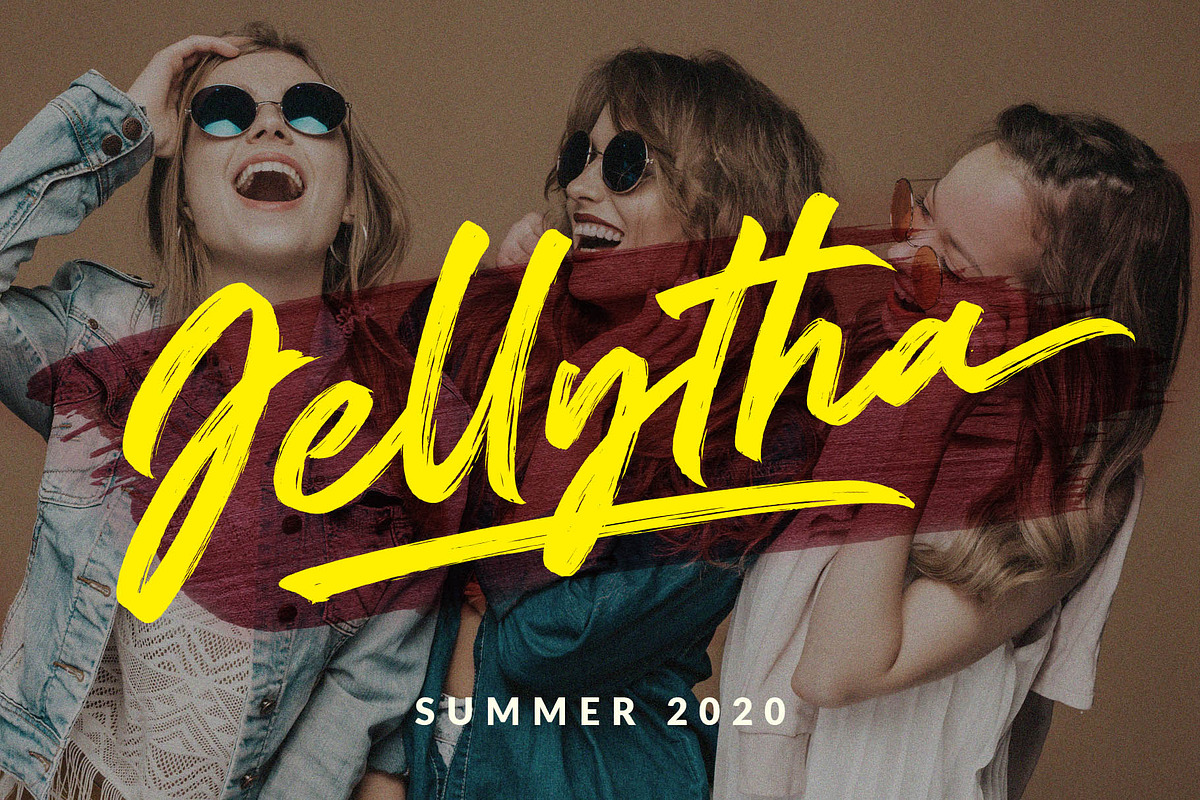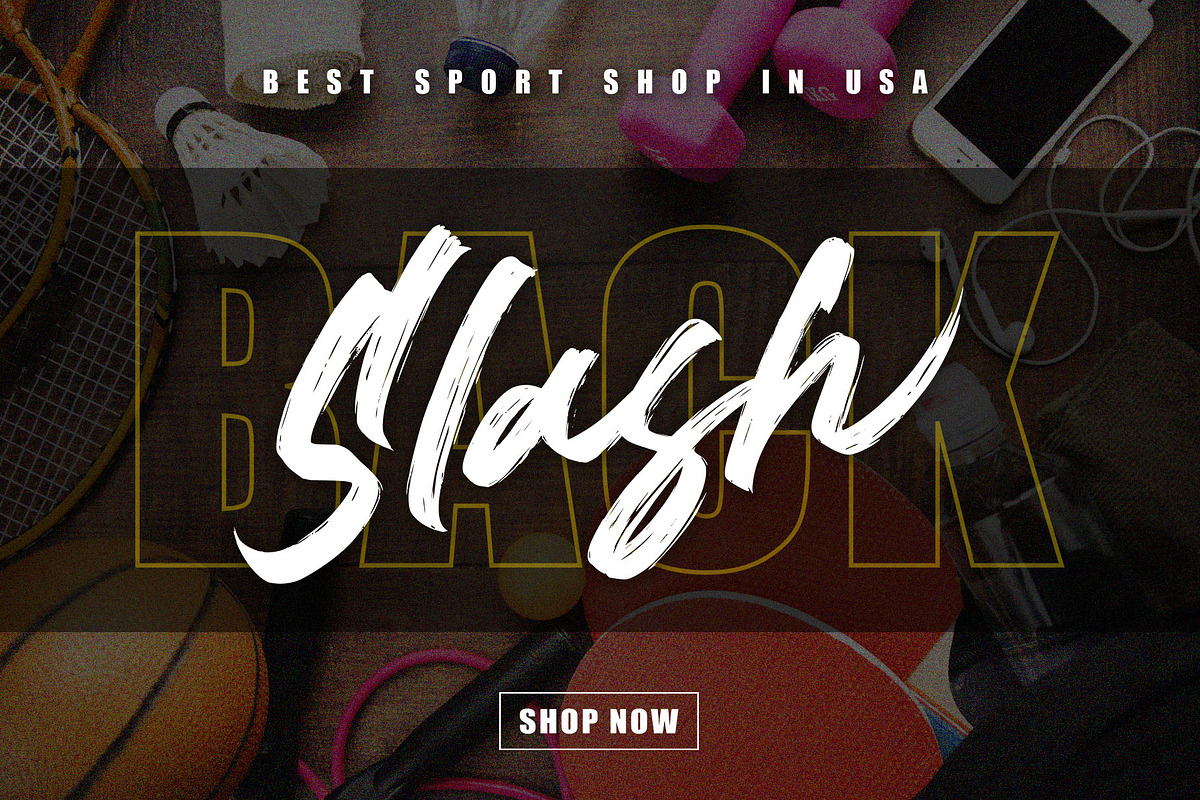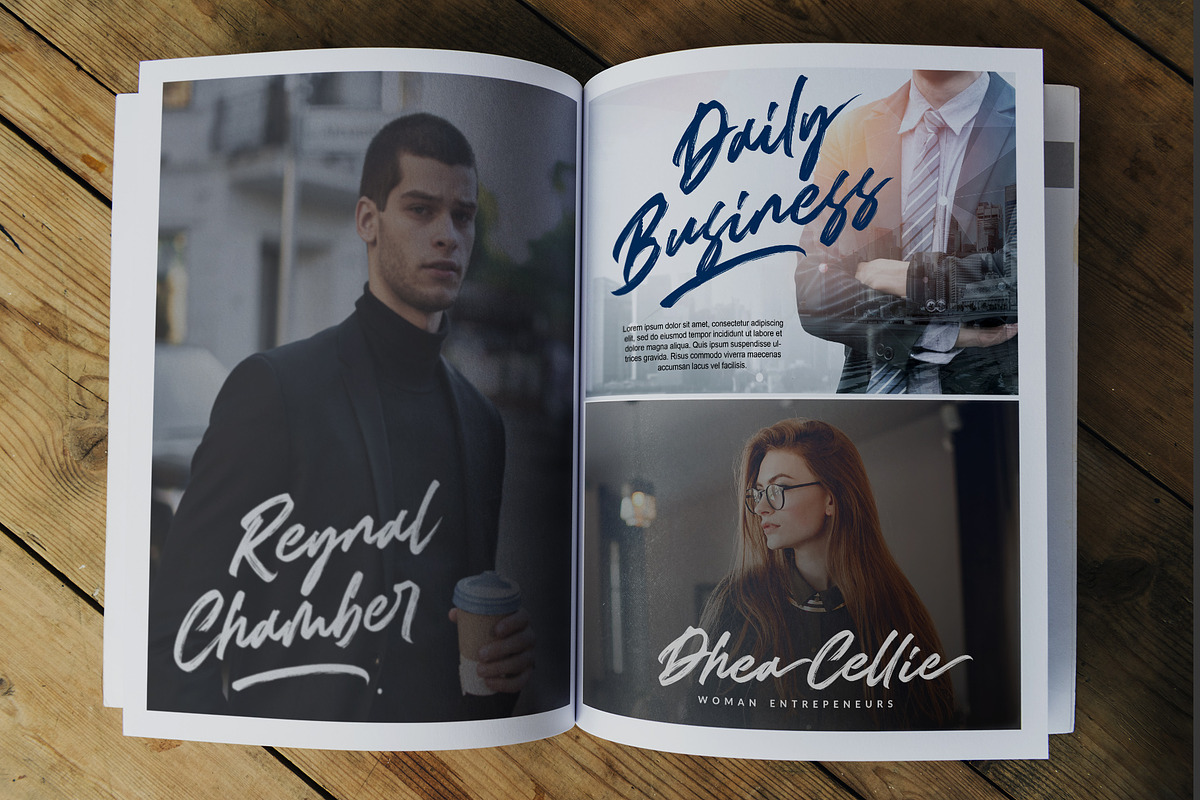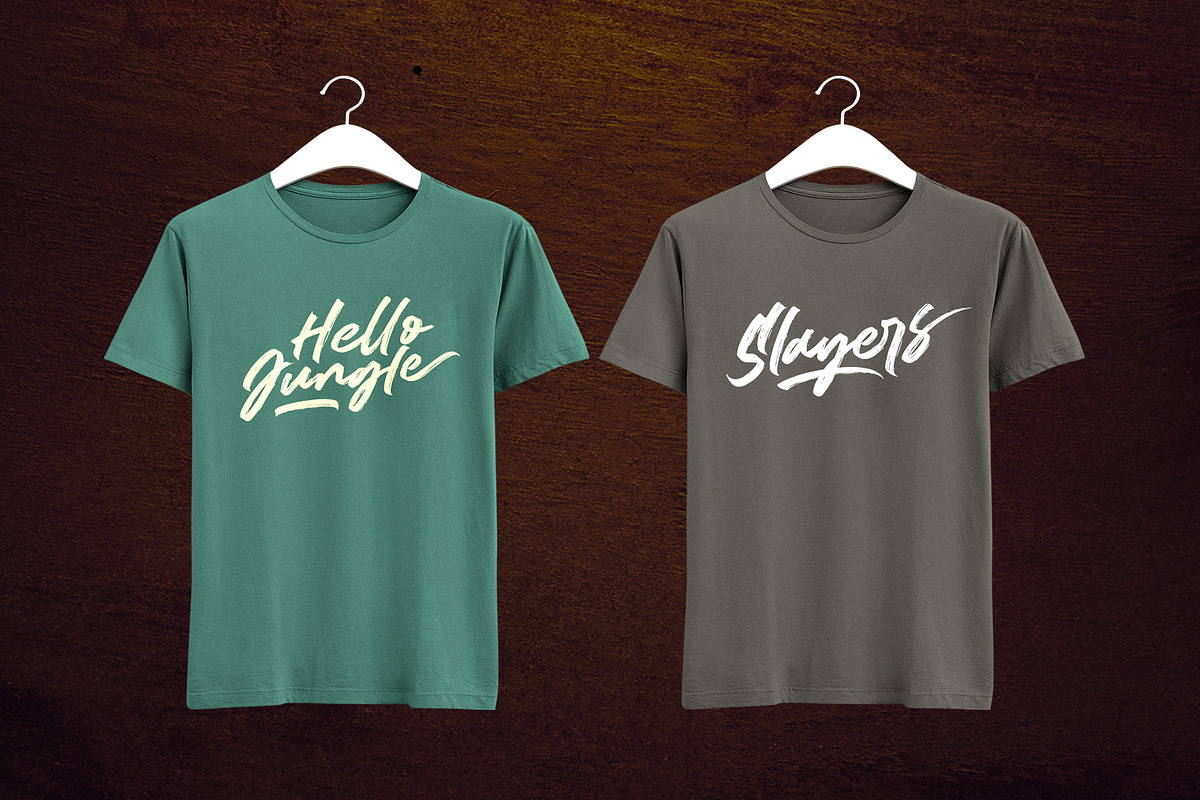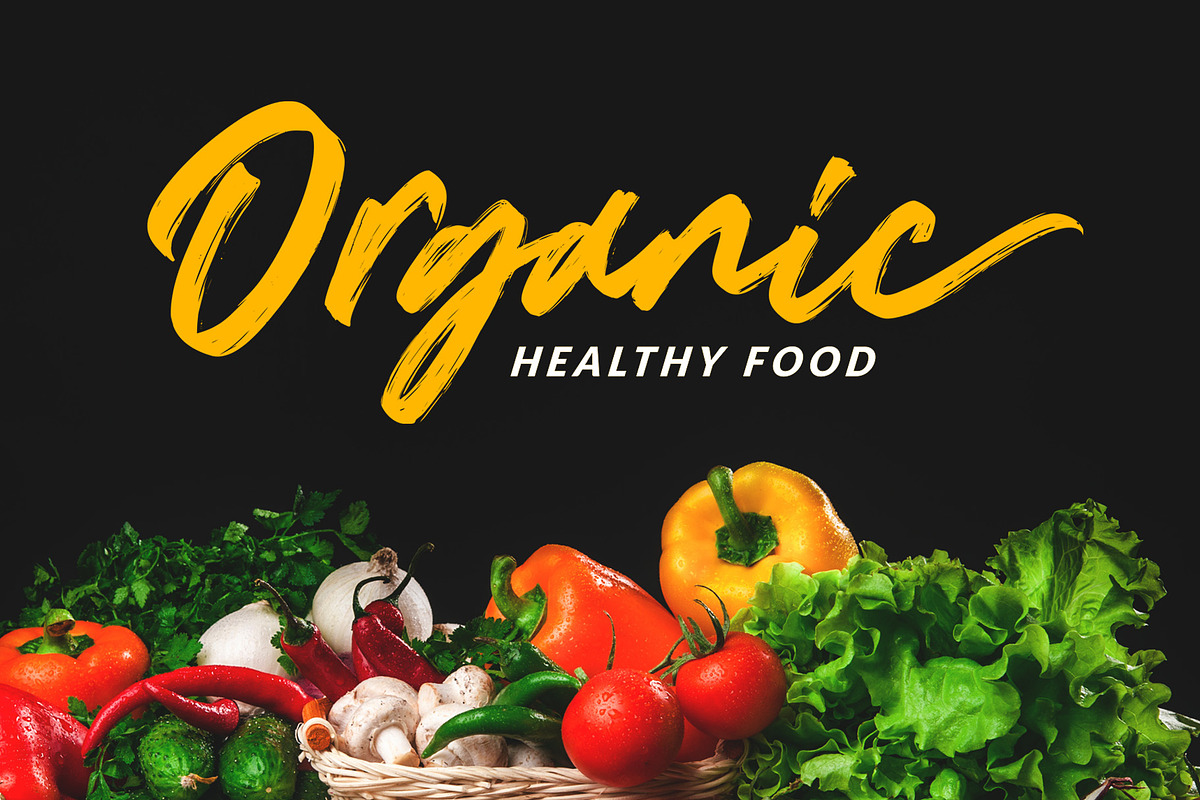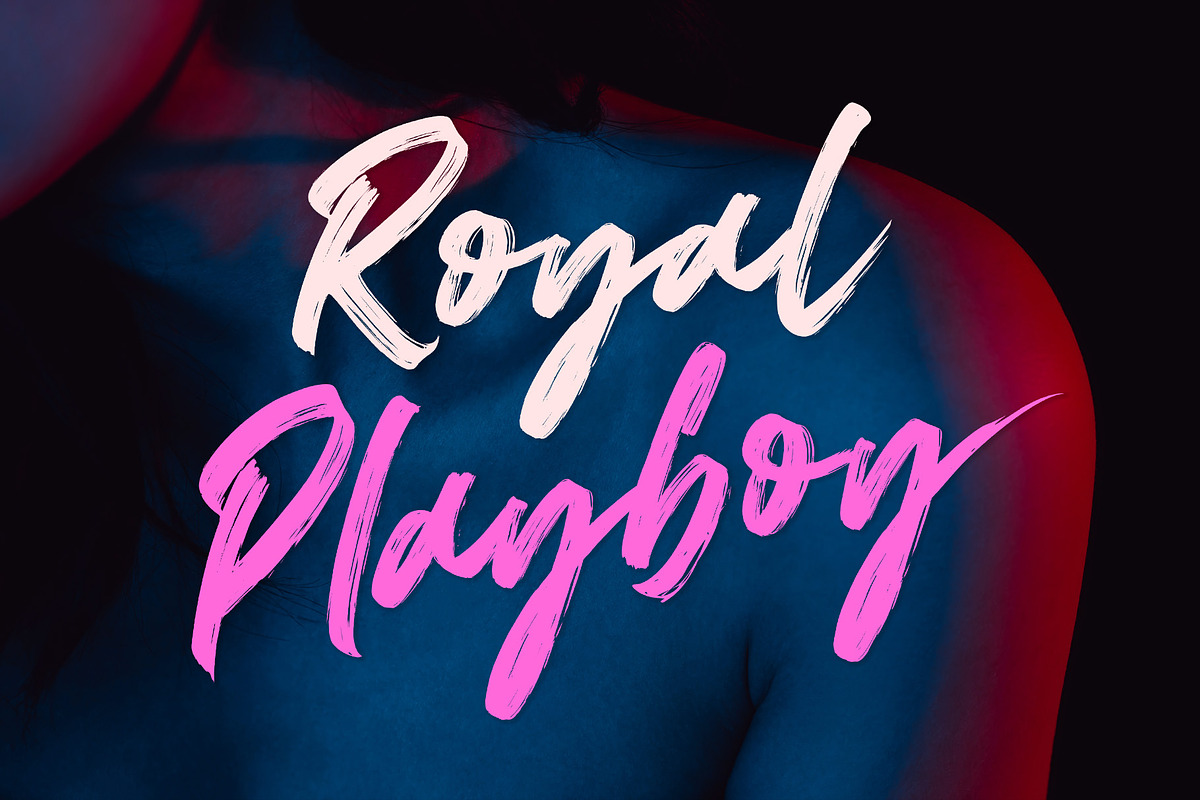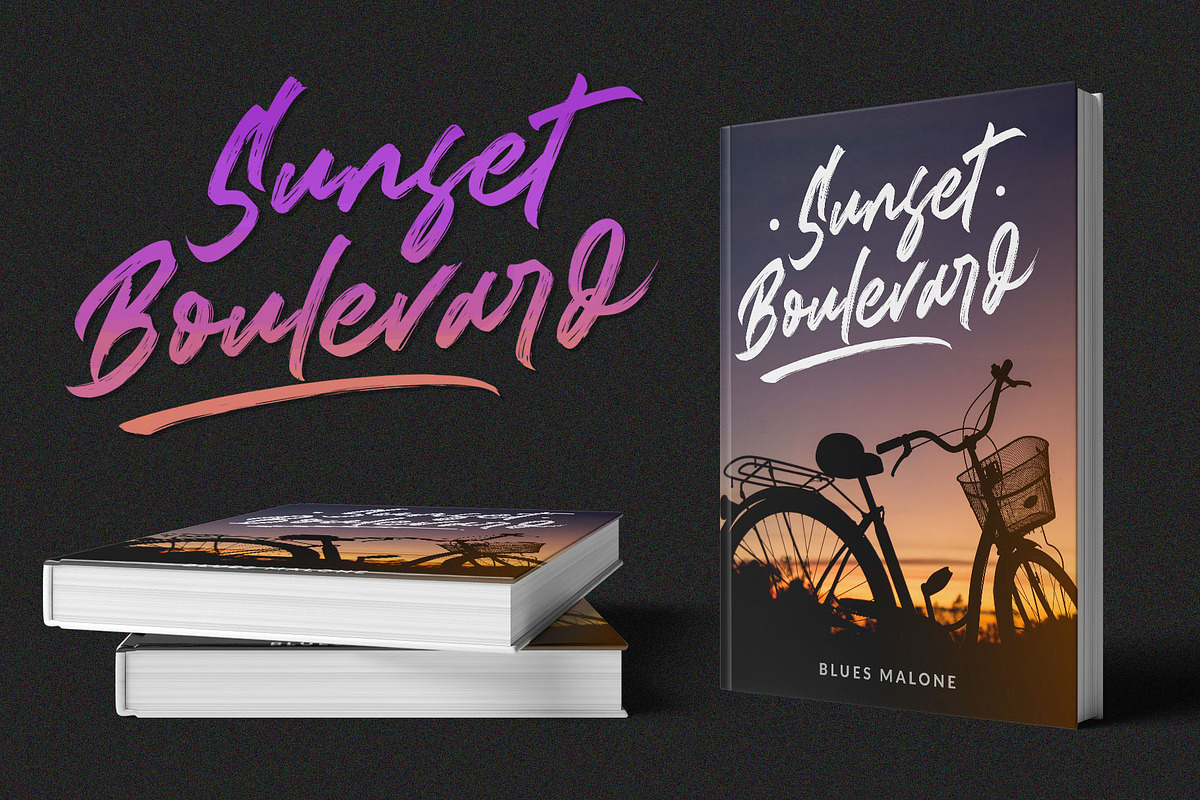
Rightside / Brush Script Font
Rightside is a brush script font, dapper handwritten font with a personal charm. With quick dry strokes and a signature style, Rightside is perfect for branding projects, homeware designs, product packaging - or simply as a stylish text overlay to any background image.
Ligatures • Are also available for several lowercase characters (double-letters which flow more naturally). These are only accessible via software with opentype capability or a glyphs panel, e.g. Photoshop/Illustrator.
Note: in the preview there is a swash. I do not provide swash, I made the swash from the characters "Parenleft or right" and "backslash" I edited it in Corel Draw.